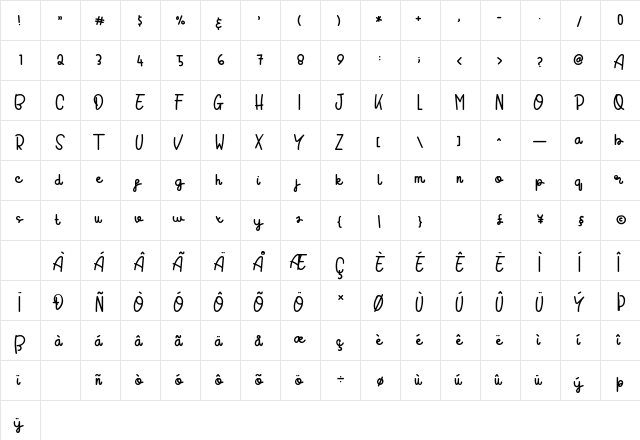
Sugarly Regular
Regular · Typotopia Khusnun Irawan ·
Foundry Typotopia
FoundryTypotopia
DesignerKhusnun Irawan
Design Context for Sugarly Typeface
Sugarly is a composed and adaptable typeface that performs quietly and consistently across a wide range of design contexts.